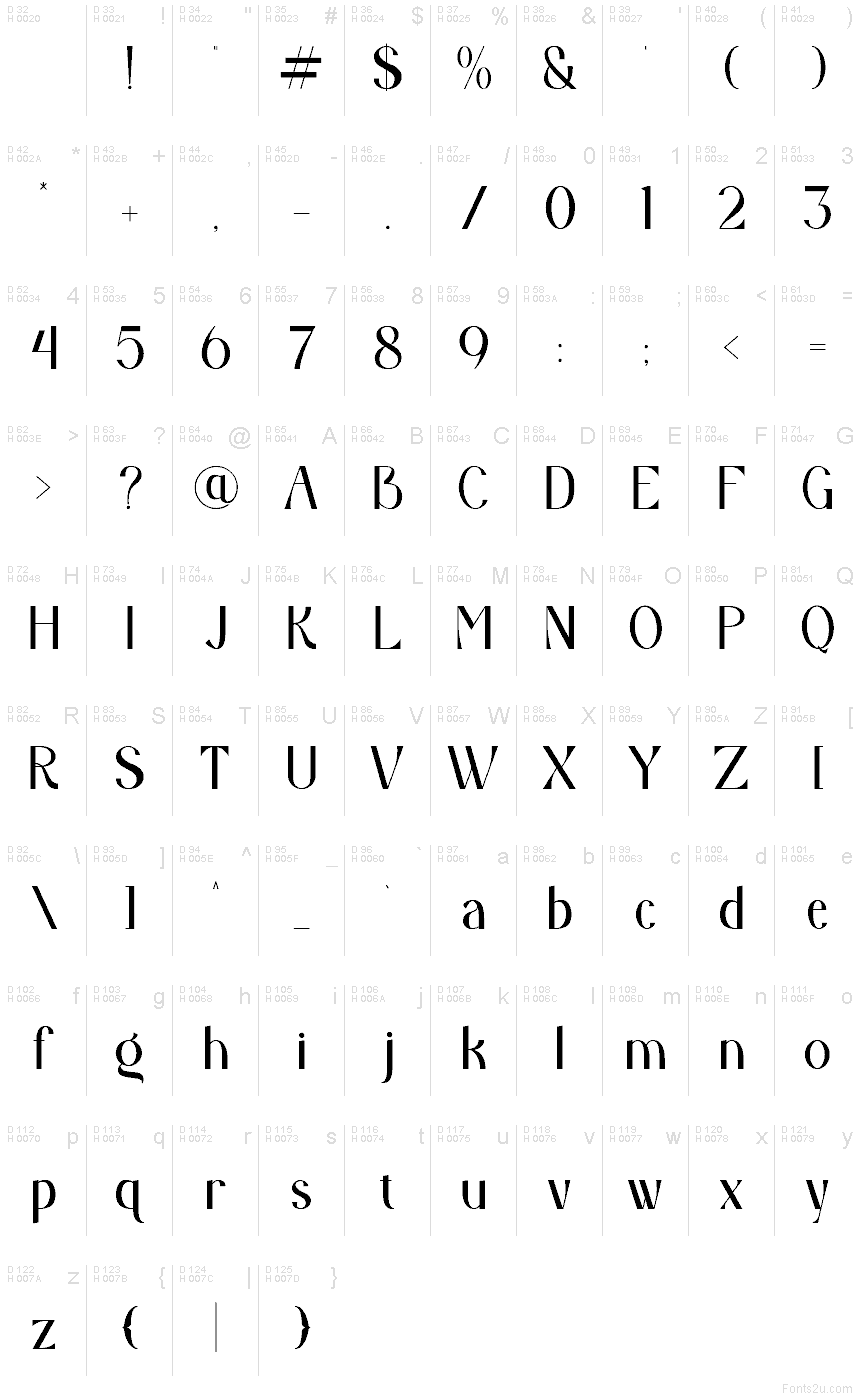
Arcadian
Arcadian font, designed by Rian Dryana, exudes a modern elegance while capturing vintage-inspired style. Its distinct contrast between thin and thick strokes gives it refined sophistication with an artistic flair we rarely see. And while looking amazing is essential for any font, Arcadian achieves that and more with its high readability that balances all design needs.
Arcadian is suitable for elegant posters, branding design where readable yet artistic fonts have priority, magazines/magazine layouts, book covers’ typography, product packaging of high-fashion brands/accessories brands/cosmetic companies. Use it in album covers/businesses/advertising/digital marketing/social media graphics. Download this free serif font to explore and experiment at will!